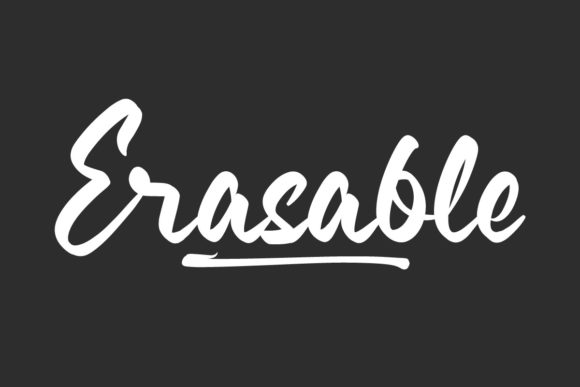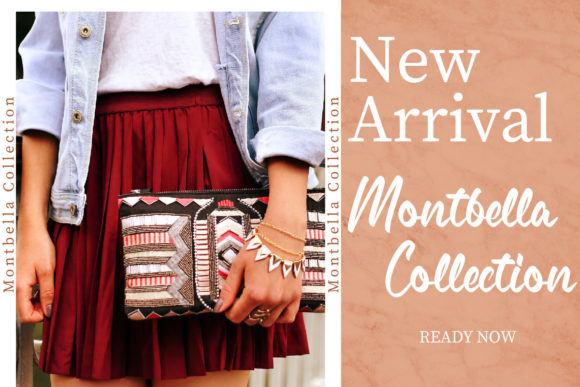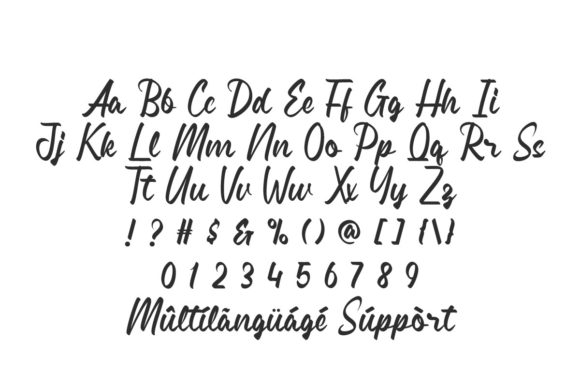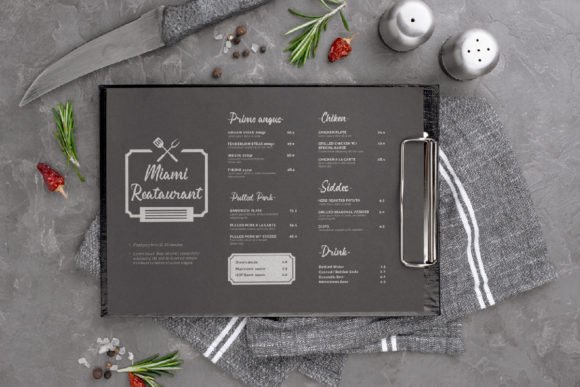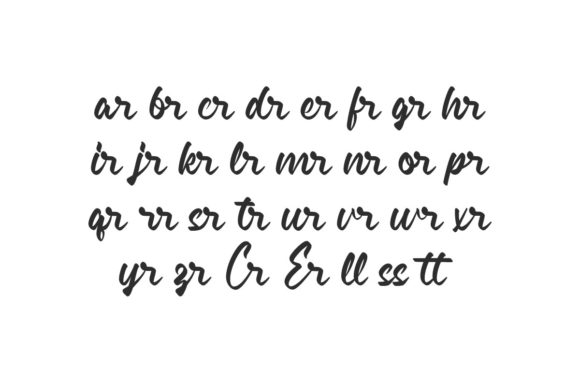
About Erasable Font
Erasable font emerges as a captivating addition to script font, characterized by its charming and delicate demeanor. Crafted with meticulous care, this font embodies a unique blend of elegance and subtlety, making it a versatile choice for a myriad of design projects.
At the forefront of its design is the script style, which infuses Erasable font with a sense of grace and sophistication. Each character is delicately rendered, with flowing lines and graceful curves that exude a timeless appeal. Whether used for invitations, cards, posters, or any other creative venture, this font adds a touch of class and refinement to the design.
Moreover, Erasable font offers unparalleled versatility, adapting seamlessly to various design contexts. Its sweet and subtle demeanor makes it suitable for a wide range of applications, from branding projects to social media graphics. Regardless of the project’s scope, this font effortlessly enhances the overall visual appeal, leaving a lasting impression on the audience.
In addition to its aesthetic charm, Erasable font boasts practical features that enhance its usability. The font is PUA encoded, granting easy access to a vast array of glyphs and swashes. This accessibility empowers designers to unleash their creativity and customize their designs with ease, adding unique flourishes and personal touches to their projects.
Furthermore, Erasable font prioritizes readability, ensuring clear and legible text in every application. The meticulously crafted letterforms maintain optimal legibility, facilitating effective communication and ensuring that the intended message resonates with the audience.
In summary, Erasable font stands as a testament to the beauty and versatility of script typography. With its charming and delicate script style, PUA encoding for accessibility, and impeccable readability, it serves as a valuable tool for designers seeking to elevate their creations. Whether employed for formal invitations or whimsical greeting cards, Erasable font imbues each project with an unmistakable sense of elegance and sophistication, leaving an indelible mark on the design landscape. Let Erasable font be the muse for your next creative endeavor, and watch as it transforms your vision into a masterpiece of typographic artistry.